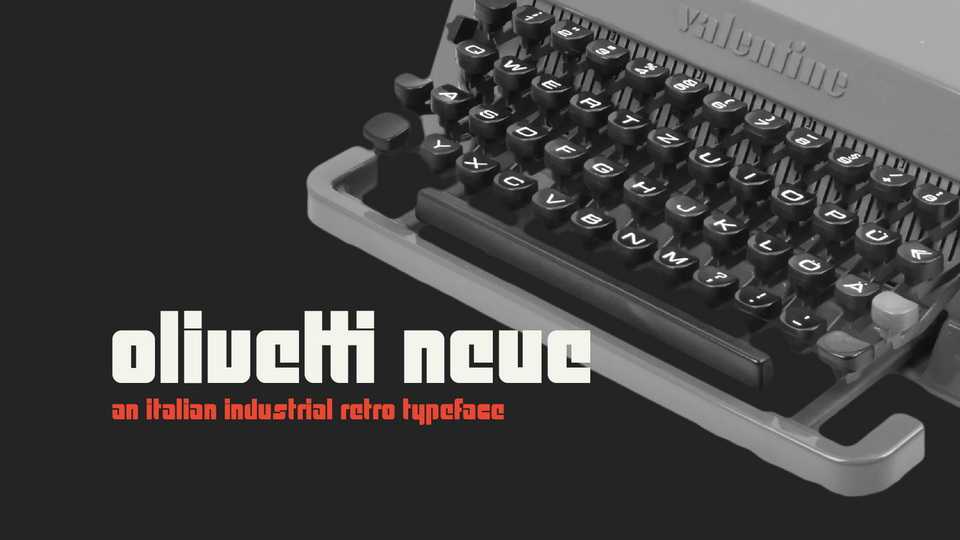
Download Olivetti Neue font, an Italian retro industrial typeface inspired by the original Olivetti logo. Its iconic typeface was reimagined with slight changes to make it more contemporary yet still undoubtedly retro.